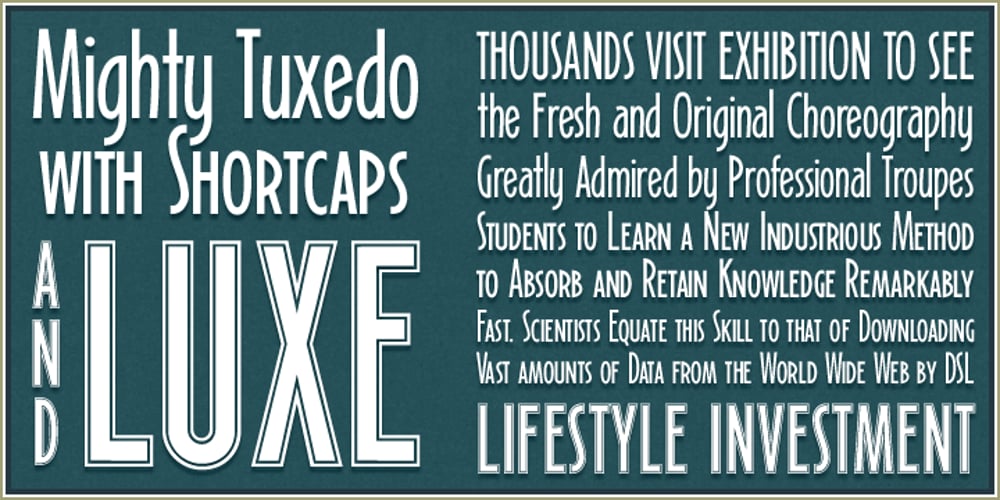
Mighty Tuxedo AOE
Mighty Tuxedo AOE font
Mighty Tuxedo AOE Font Family was designed by Brian J. Bonislawsky and published by Astigmatic. Mighty Tuxedo AOE contains 5 styles and family package options. Inspired by 1930’s Art Deco lettering styles, the Mighty Tuxedo font family comes complete with a Regular, Shortcaps, and AllCaps Luxe version, to give it an impressive range of flexibility & flair. A show-stopper of a poster display typestyle, with the ability to work well in condensed text set situations to boot! Mighty Tuxedo Pro and Mighty Tuxedo Luxe OT are the OpenType versions which include an expanded language set, but Mighty Tuxedo Pro goes further to also include smallcaps built-in, limitless fractionals, superiors, inferiors, tabular & proportional figures, and ordinal characters to properly type options like 1st, 2nd, 3rd, etc. The original 3 font family compiled into two OpenType fonts, with much more functionality than the originals.